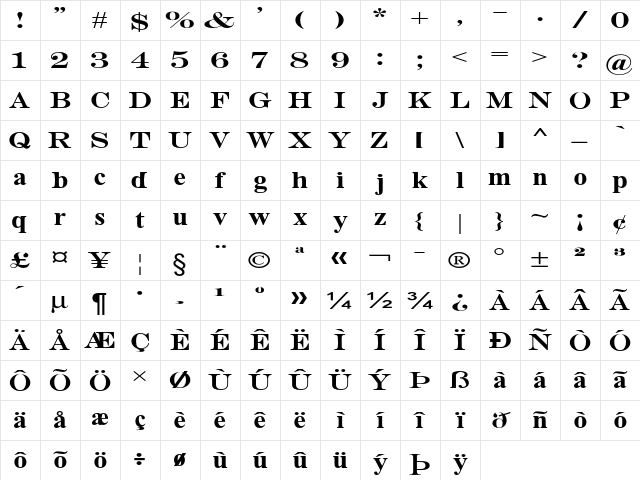
Muritania Expanded Regular
Style: Expanded Regular
Muritania Family
Muritania Expanded Regular
Complete Muritania Expanded Regular glyph index. Displaying only characters natively supported by Muritania Expanded Regular font.
Design Context for Muritania
Muritania is a composed and adaptable typeface that performs quietly and consistently across a wide range of design contexts.